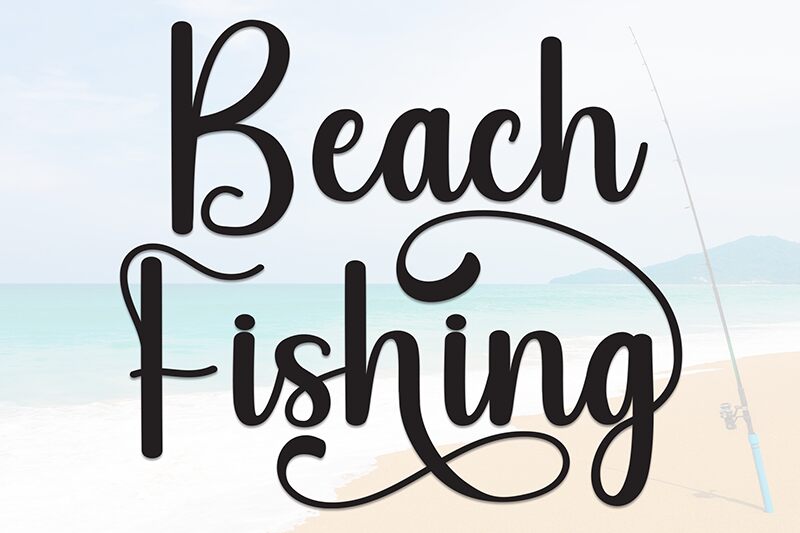
Beach Fishing
Beach Fishing font is a brush free font designed by Scratchones with an elegant and flowing look. Decorative elements make the usage of this resource interesting and memorable, with a soap bubble texture that’s whimsical and gives off the impression of bubble surfing. This font is particularly enjoyable for fans of handwritten fonts who also wish to add a lively ambiance.
Use Beach Fishing for poster designs meant to advertise special sales or for magazine covers on which different styles can be paired together. Use it as well for logos, book titles, or business cards projects.